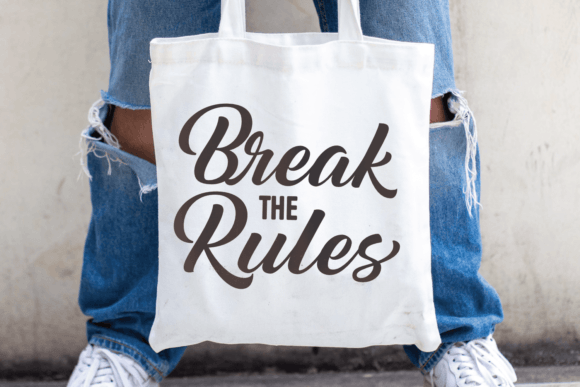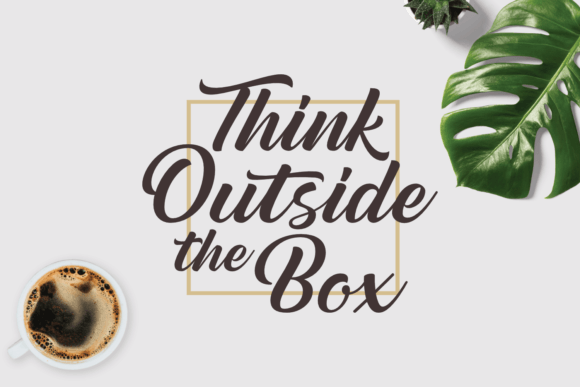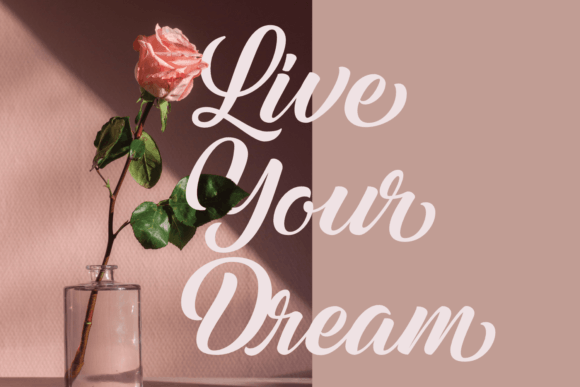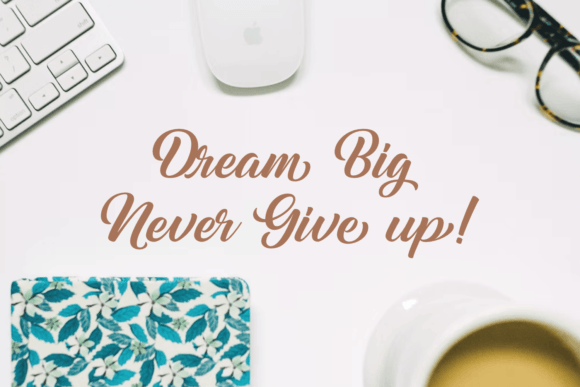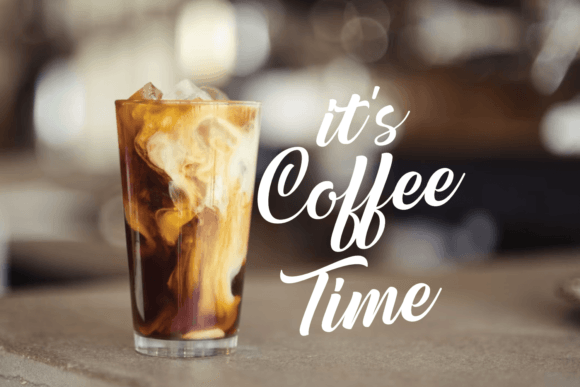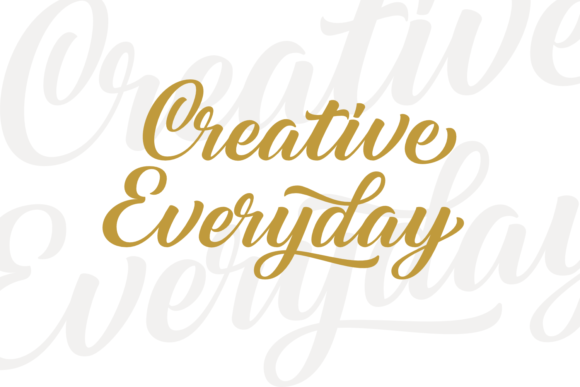
Harington Font: A Modern Cursive Script with a Nostalgic Twist
In the world of typography, fonts play a crucial role in conveying the tone and personality of a design. For designers and crafters looking for a unique and eye-catching font, Harington is an excellent choice. This modern cursive script font is designed to make a statement, exuding confidence, strength, and dynamism. With its nostalgic character, Harington font is perfect for adding a touch of personality to your designs.
The Characteristics of Harington Font
Harington is a cursive and modern style handwritten font that boasts a strong and confident appearance. Its fluid strokes and elegant letterforms make it an excellent choice for a wide range of design projects, from branding and advertising to packaging and digital media. The font’s unique blend of modernity and nostalgia gives it a distinctive edge, setting it apart from more traditional fonts.
One of the key features of Harington font is its dynamic and energetic feel. The font’s cursive style gives it a sense of movement and fluidity, making it perfect for designs that require a sense of action and momentum. At the same time, its elegant and refined letterforms ensure that the font remains legible and easy to read, even at smaller sizes.
The Benefits of Using Harington Font
So why choose Harington font for your design projects? Here are just a few benefits of using this versatile and stylish font:
- Unique and eye-catching: Harington font is a standout font that is sure to grab attention. Its modern cursive style and nostalgic character make it a distinctive and memorable choice for designers.
- Versatile: Harington font is suitable for a wide range of design projects, from digital media and advertising to packaging and branding.
- Elegant and refined: Despite its dynamic and energetic feel, Harington font remains elegant and refined, making it perfect for designs that require a touch of sophistication.
- Easy to read: The font’s clear and legible letterforms ensure that it remains easy to read, even at smaller sizes.
How to Use Harington Font in Your Designs
So how can you use Harington font in your designs? Here are a few ideas to get you started:
- Branding and logos: Harington font is a great choice for branding and logos, particularly for businesses that want to convey a sense of confidence and dynamism.
- Advertising and marketing: The font’s eye-catching and attention-grabbing style makes it perfect for advertising and marketing materials, such as brochures, flyers, and social media graphics.
- Packaging: Harington font is also suitable for packaging design, particularly for products that want to stand out on store shelves.
- Digital media: The font’s clear and legible letterforms make it a great choice for digital media, such as website headers, blog posts, and social media graphics.
Tips for Pairing Harington Font with Other Fonts
When using Harington font in your designs, you may want to pair it with other fonts to create visual interest and contrast. Here are a few tips for pairing Harington font with other fonts:
- Pair with a sans-serif font: Pairing Harington font with a sans-serif font, such as Arial or Helvetica, can create a nice contrast between the font’s cursive style and the clean, modern lines of the sans-serif font.
- Pair with a serif font: Pairing Harington font with a serif font, such as Times New Roman or Georgia, can create a nice contrast between the font’s modern style and the classic, traditional feel of the serif font.
- Experiment with font sizes: Experimenting with different font sizes can help create visual interest and hierarchy in your designs. Try using Harington font in a larger size for headings, and a smaller size for body text.
In conclusion, Harington font is a versatile and stylish font that is perfect for designers and crafters looking to add a touch of personality to their designs. With its modern cursive style, nostalgic character, and dynamic feel, Harington font is sure to make a statement. Whether you’re working on a branding project, advertising campaign, or packaging design, Harington font is a great choice.